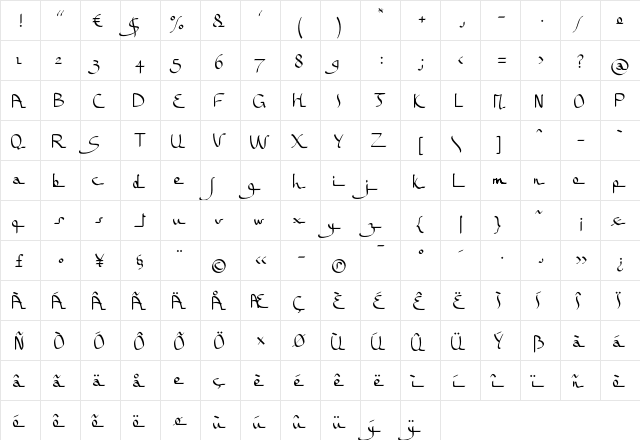
BousniRonde LT Std Medium Regular
| Foundry | Linotype Library GmbH |
| Designer | Bachir Soussi Chiadmi |
Design Context for BousniRonde LT Std Medium Typeface
BousniRonde LT Std Medium is a composed and adaptable typeface that performs quietly and consistently across a wide range of design contexts. The delicate stroke weight brings airiness and refinement to layouts.